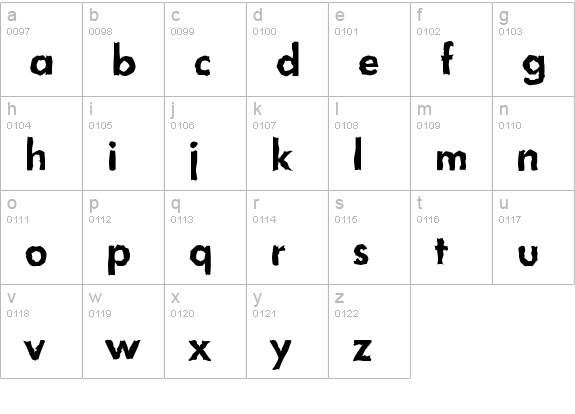
LimerickRandom-Bold is a strong, high-contrast variant in the LimerickRandom typeface family \xE2\x80\x94 well suited to headlines, attention-grabbing titles, and strong calls-to-action.
LimerickRandom-Bold font is a bold and eye-catching typeface that is perfect for making a statement. Its unique design combines a modern aesthetic with a touch of whimsy, making it a versatile choice for a variety of projects. Whether you're designing posters, logos, or social media graphics, LimerickRandom-Bold will help your text stand out. And the best part? LimerickRandom-Bold is available for free download at FontsMarket.com! This means you can add this distinctive font to your collection without any cost. Don't miss out on the opportunity to enhance your designs with LimerickRandom-Bold and make a lasting impression on your audience. Download it today and start creating impactful visuals that truly shine.